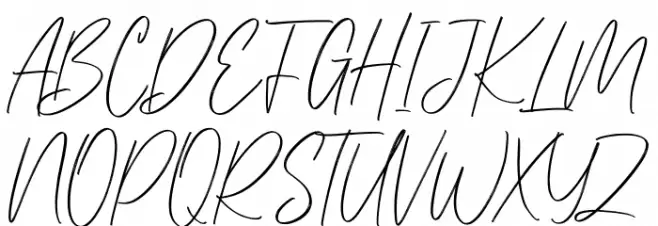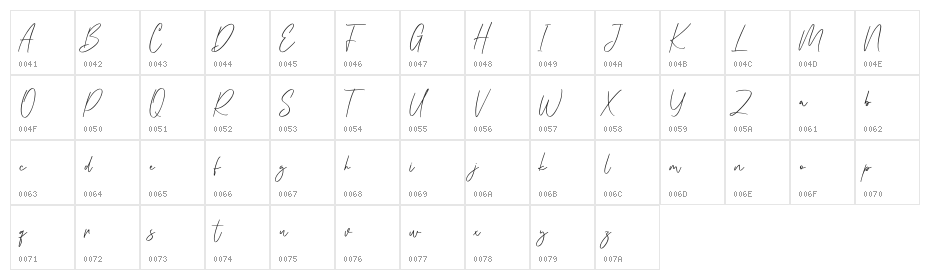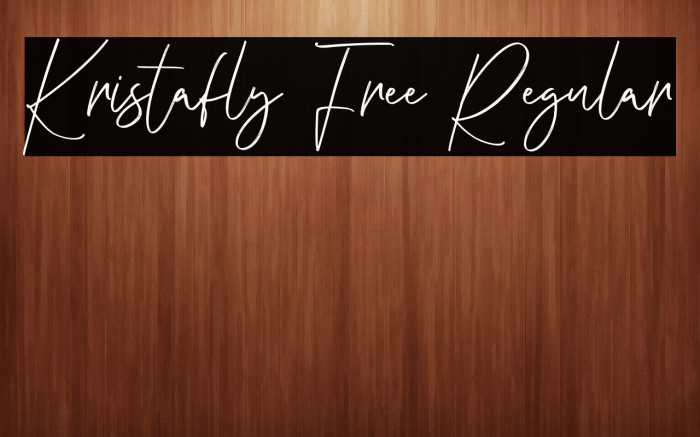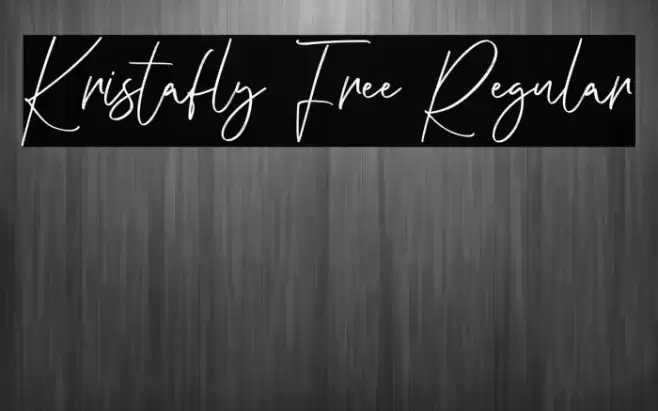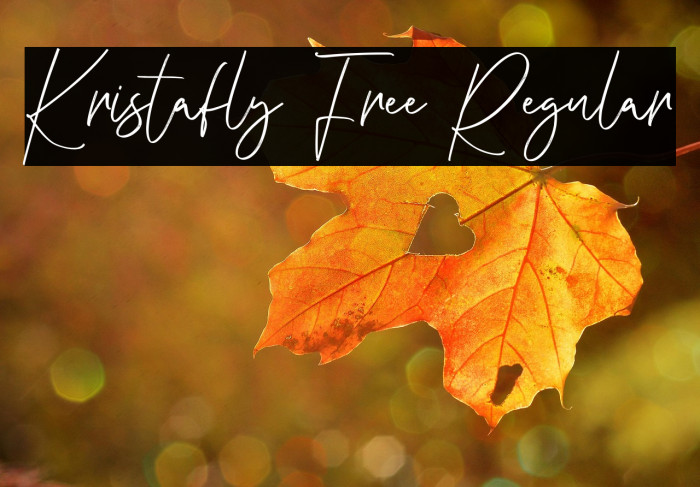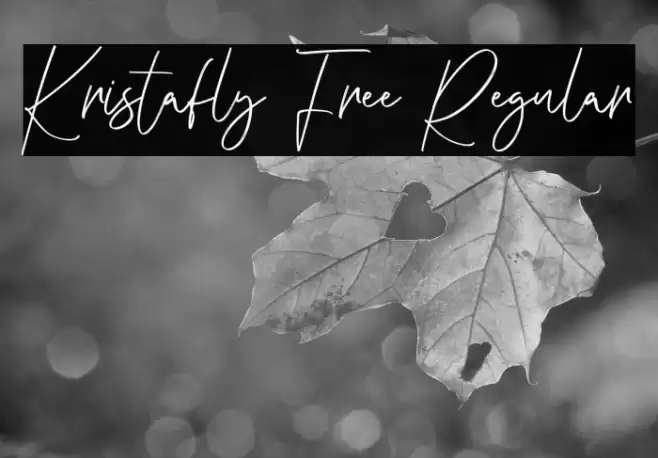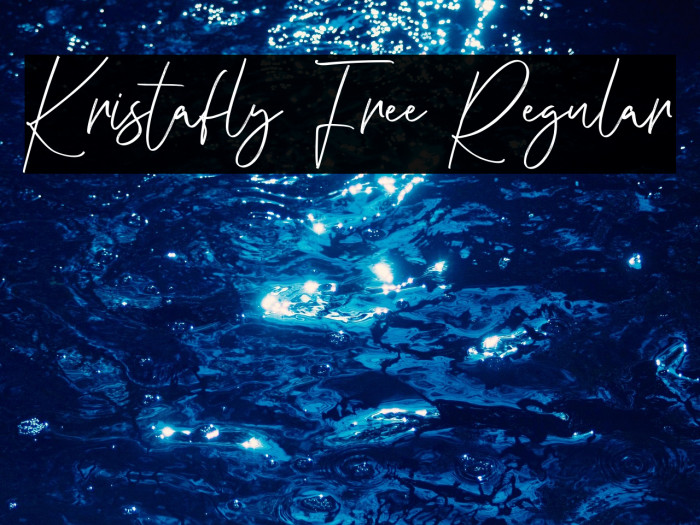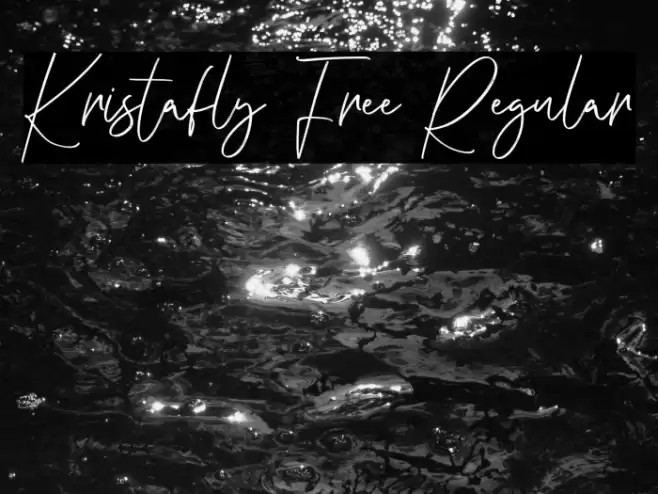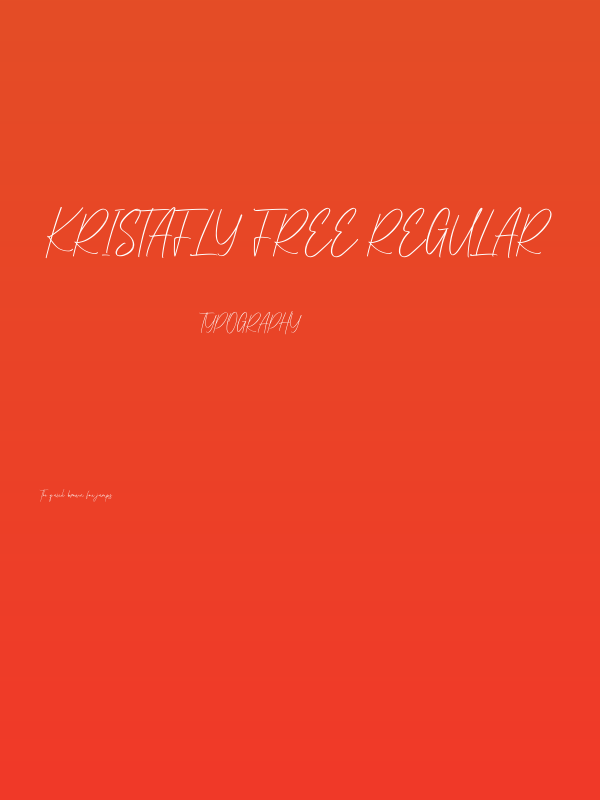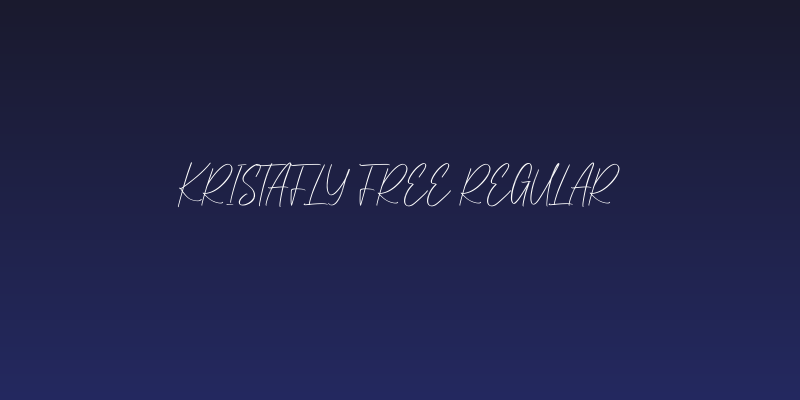
Kristafly Free Regular Font
Kristafly Free Regular Description
This font features a flowing, handwritten style that exudes elegance and sophistication. The letters are crafted with a smooth, continuous stroke, giving it a natural and organic feel. The uppercase characters are tall and slightly narrow, while the lowercase letters maintain a consistent height, enhancing readability. The overall design is airy and light, with a graceful curvature that adds a touch of whimsy. This font is perfect for projects that require a personal, yet polished touch, such as invitations, greeting cards, and branding materials. Its unique style makes it stand out, while still maintaining a level of professionalism.
| Proposed Projects | Ideal for invitations, greeting cards, branding, and personal projects. |